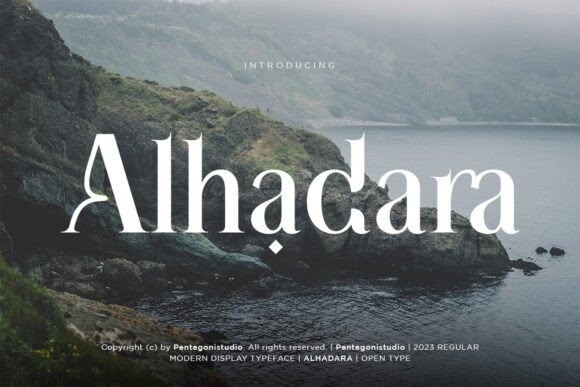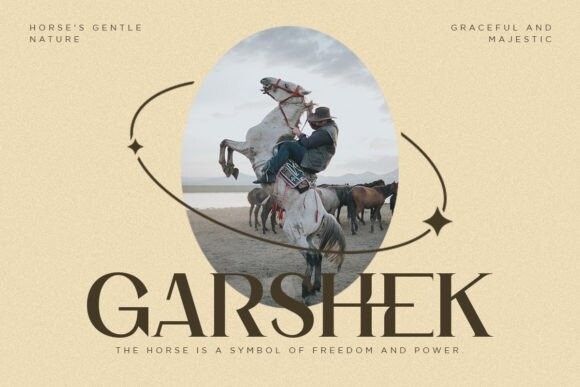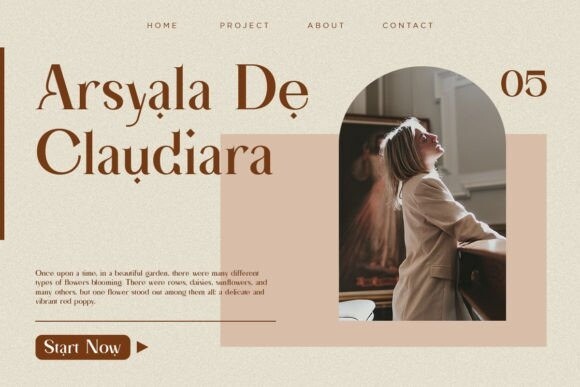
Alhadara Font
Alhadara Font is a font that epitomizes style and luxury. Its graceful and meticulously crafted serif letters exude elegance and sophistication. With its perfect balance of classic and contemporary design elements, Alhadara is ideal for high-end branding, editorial layouts, and refined graphic design projects. Elevate your work with the timeless allure of Alhadara.